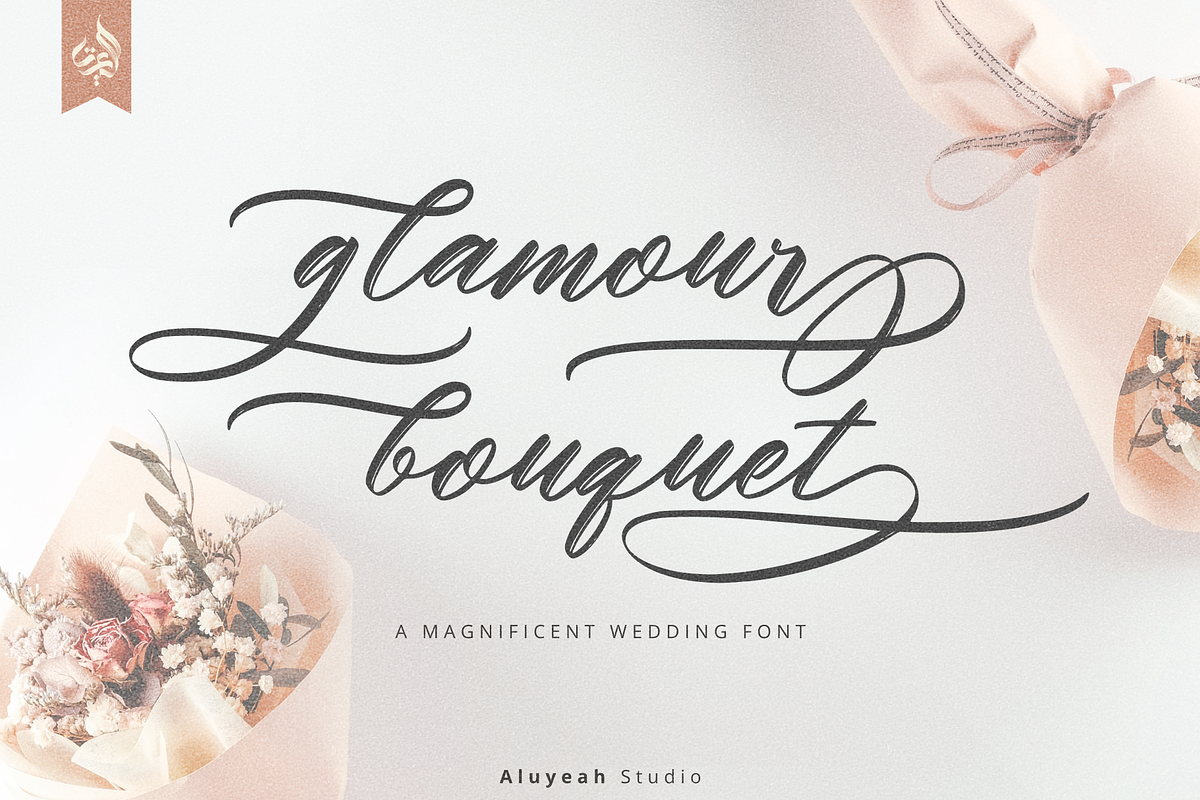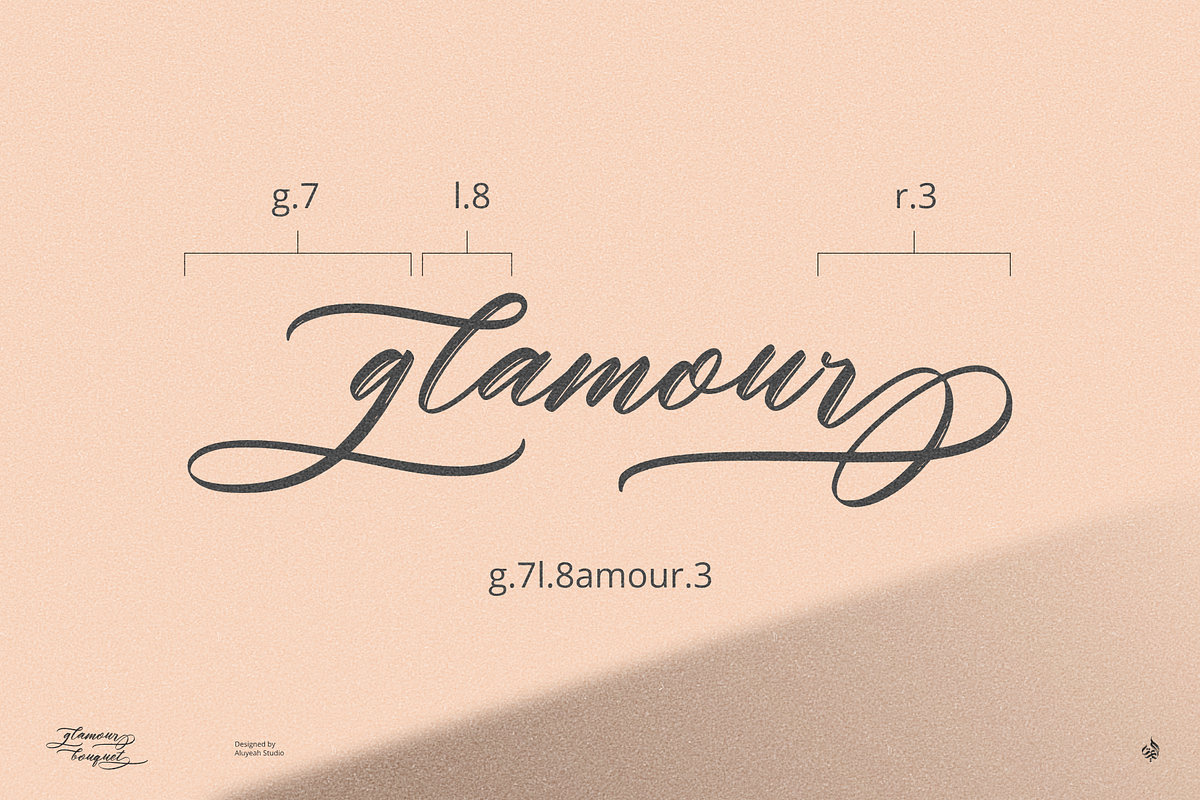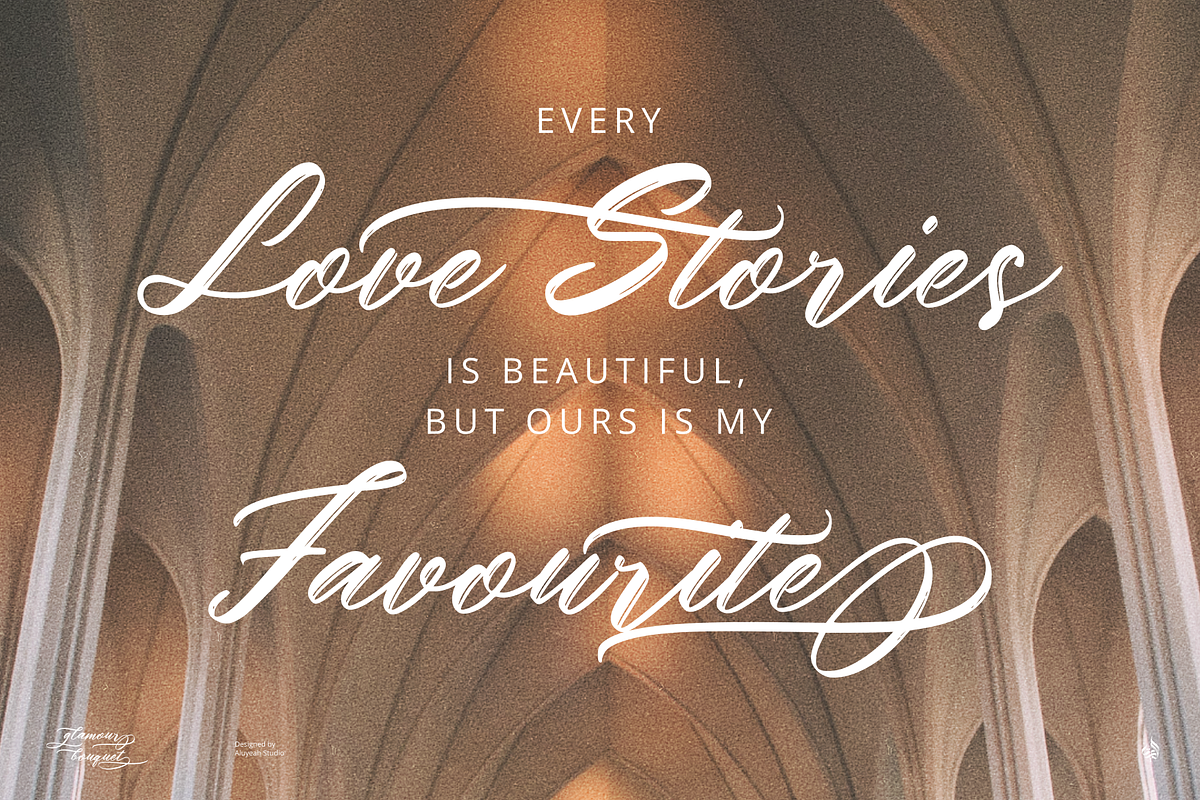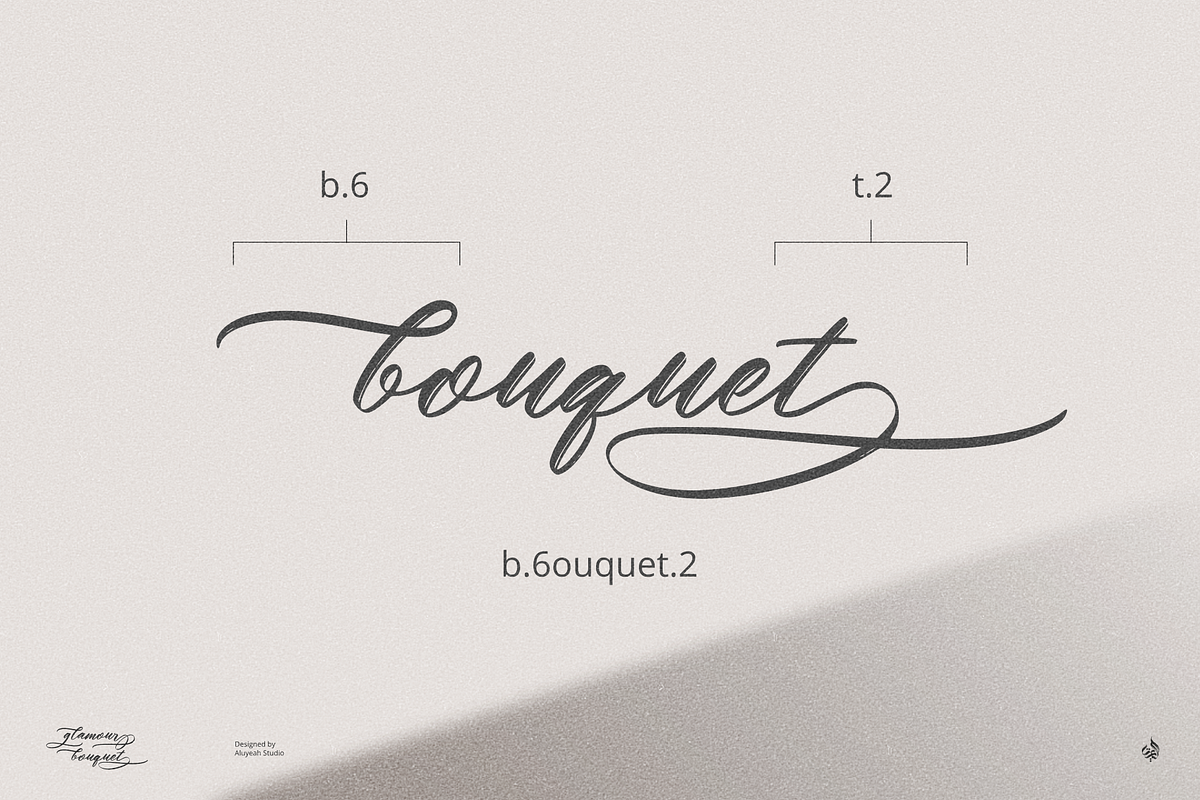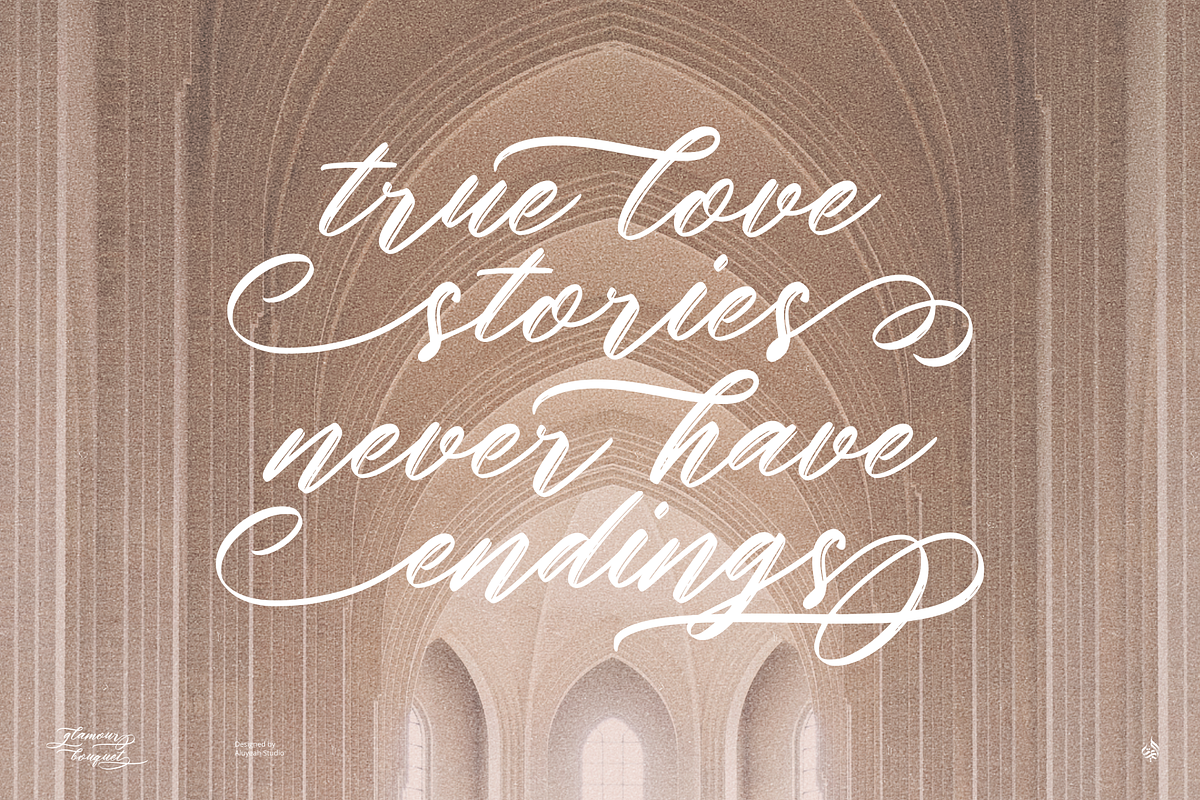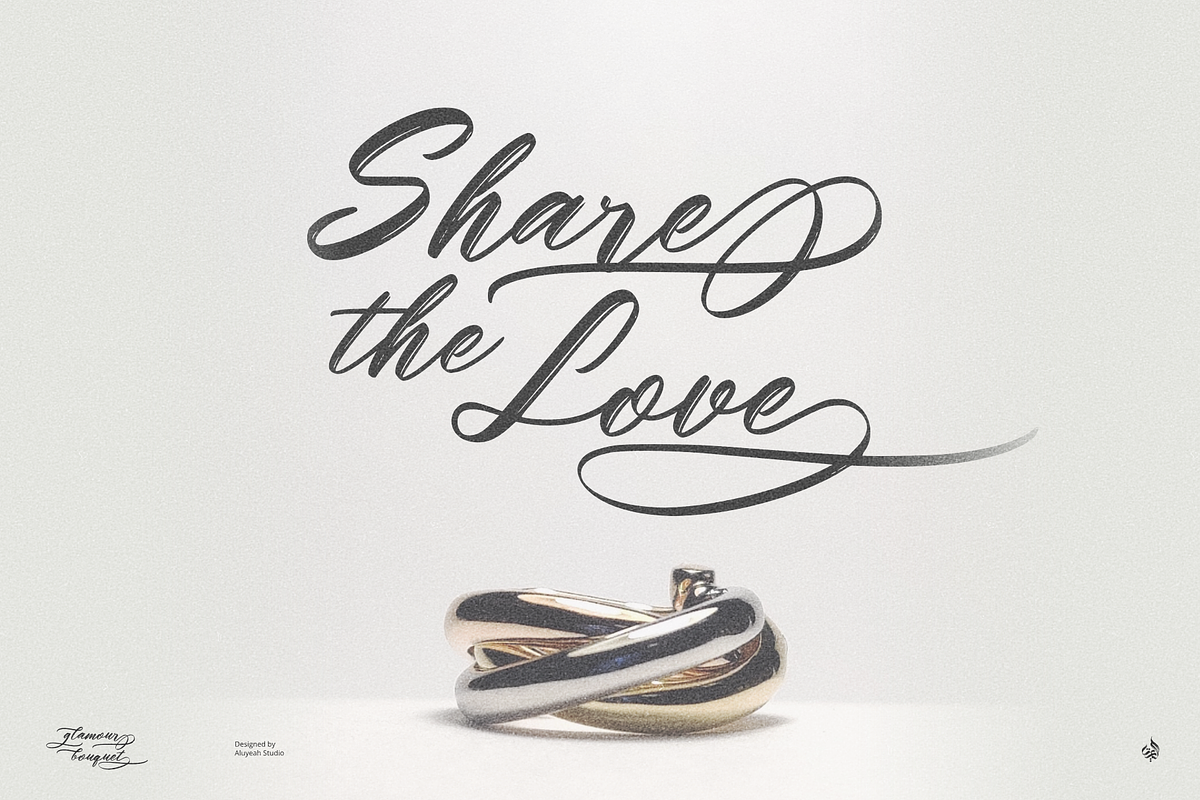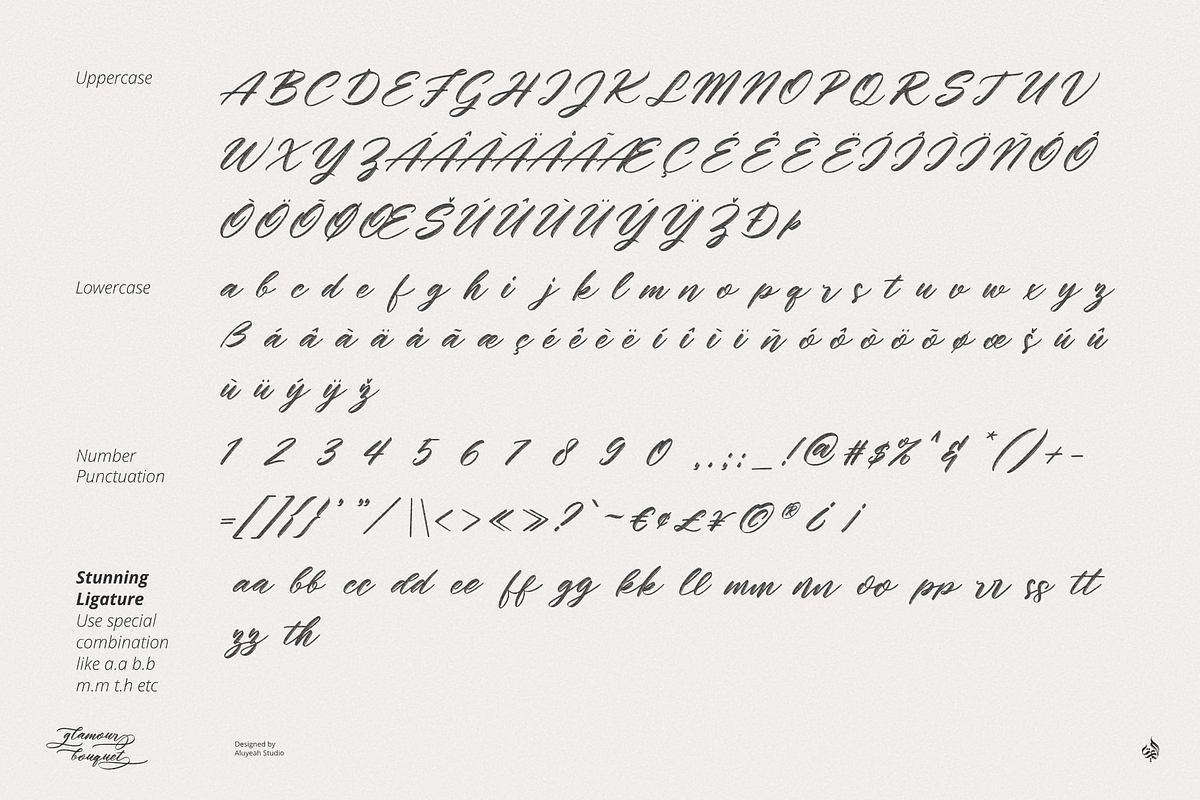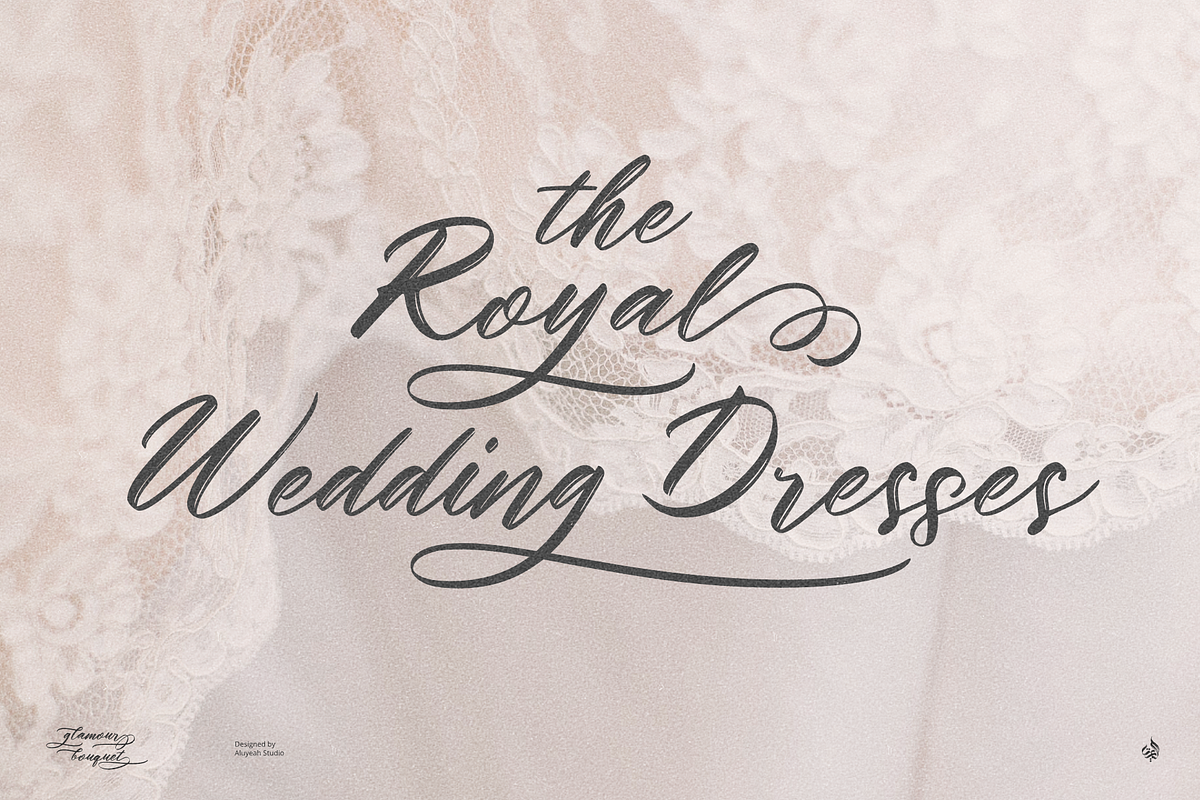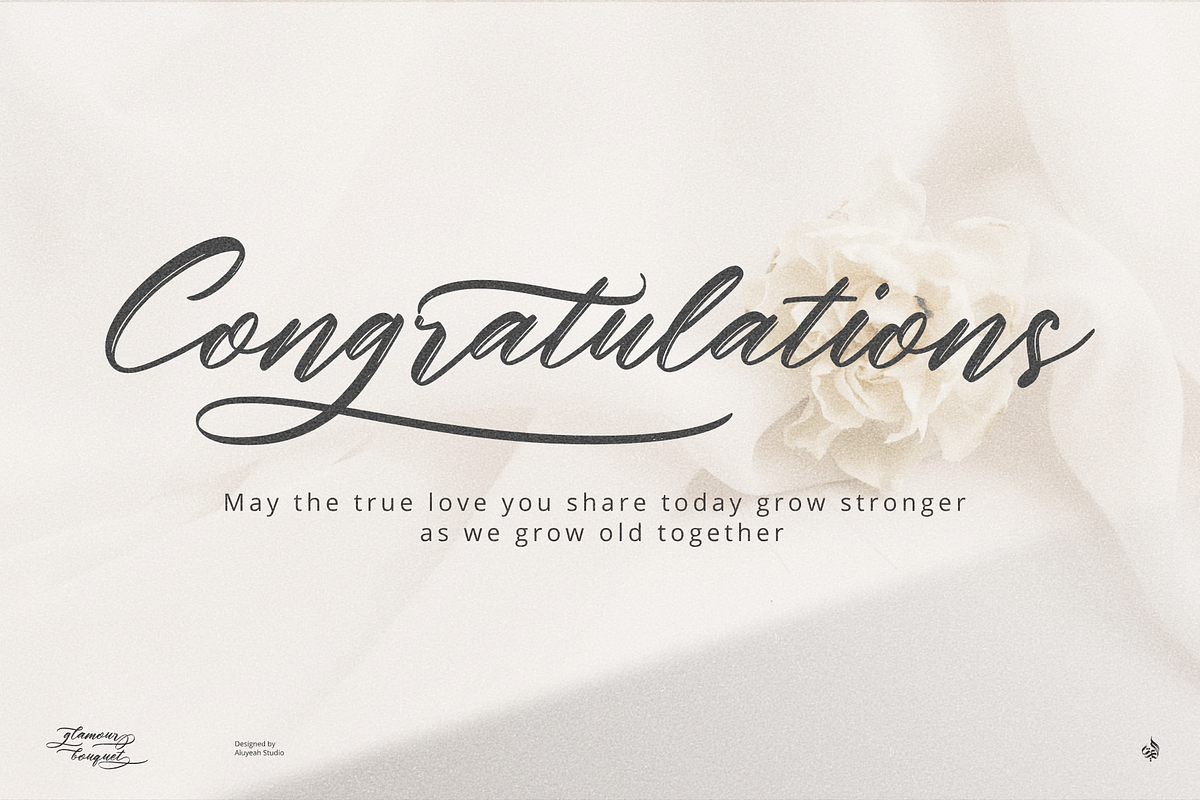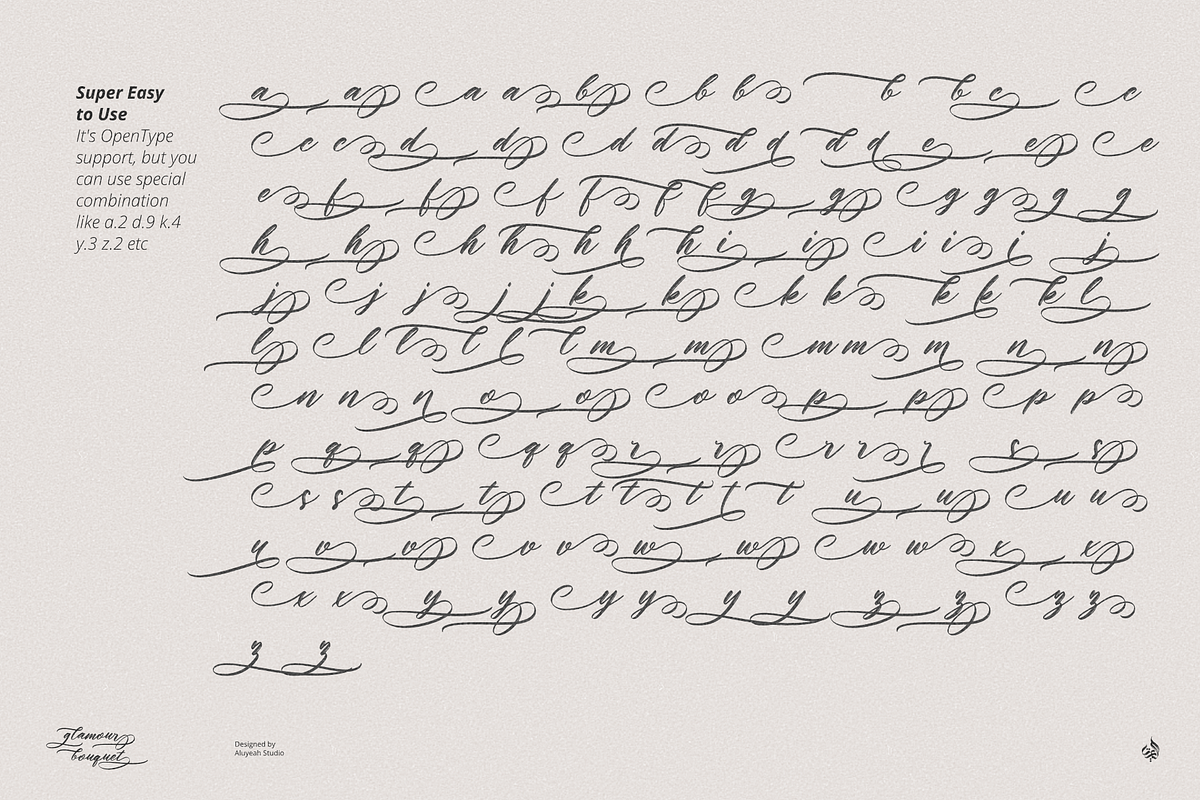
Glamour Bouquet
Glamour Bouquet, a magnificent wadding handwritten font. It's was inspired by a royal wedding that just took place in our town. Uniting the two empires of the two major cities of our country. Glamour Bouquet gives the impression of luxury, elegance, grandeur, but full of warmth and happiness. Perfect for your big day and one-time-in-life moments.
It can be applied to many areas of design. Coming with 140+ stunning and super easy to use alternates and ligatures. Very suitable for your wedding invitation, packaging, apps, magazine, headline, website, ads and all type of design project you have.
- OpenType support
- Multilingual support (15 languages)
- Super Easy to Use alternates - You can easily call alternates using special combination like a.2 k.3 b.4 t.h c.c etc.
To get results like the preview just type g.7l.8amour.3 b.6ouquet.2